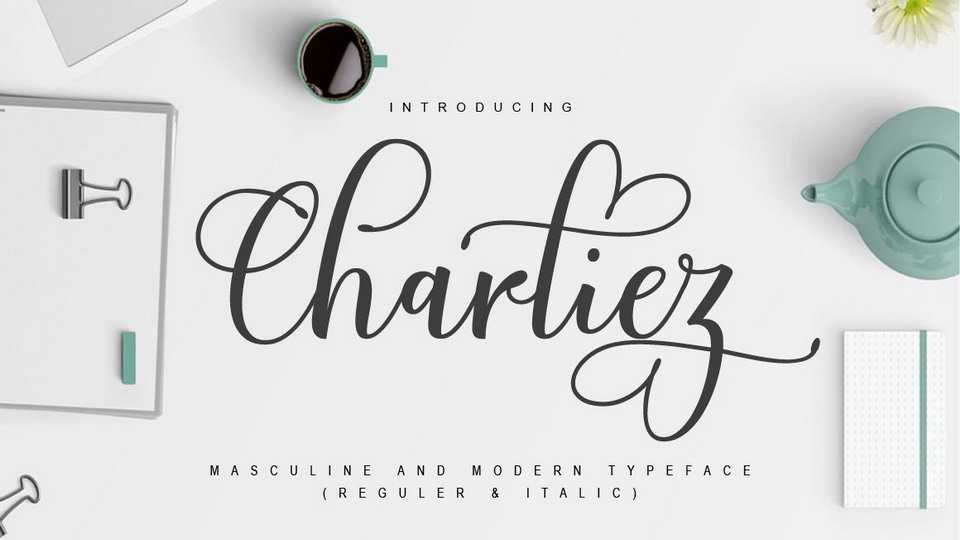
Download Charliez Script, a beautiful font with a modern hand scratches. This font can be used easily and simply because there are many features in it containing a full set of letters small and large, various kinds of punctuation, numbers, and multilingual support.